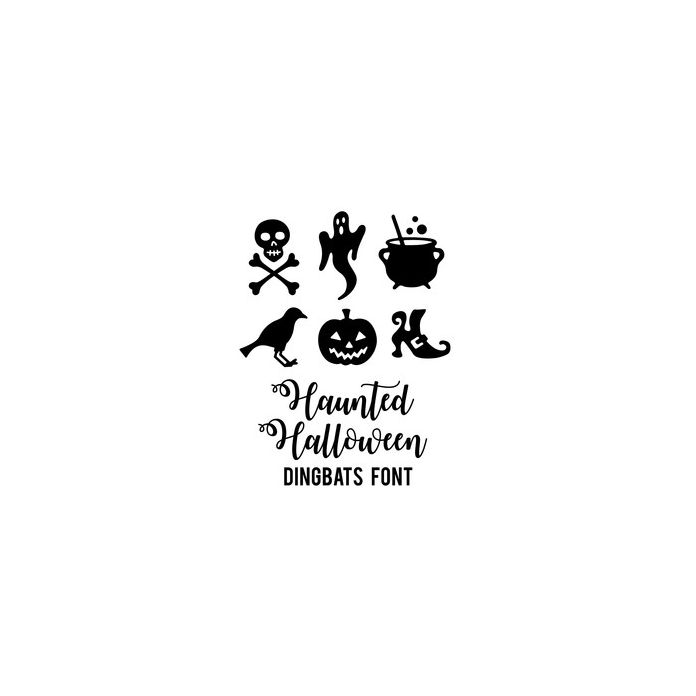
Download this Halloween-themed dingbats font to Silhouette Studio. Once loaded, type desired shape, then size and cut. This .TTF font contains 26 unique spooky Halloween shapes.